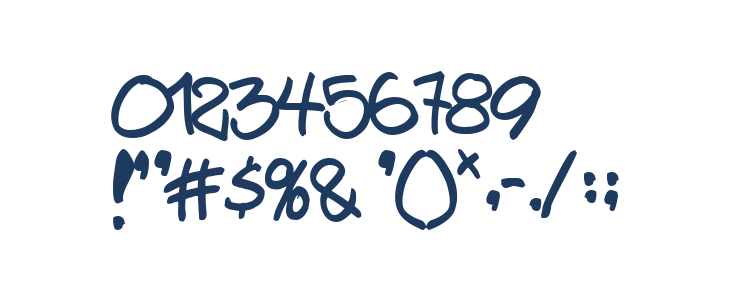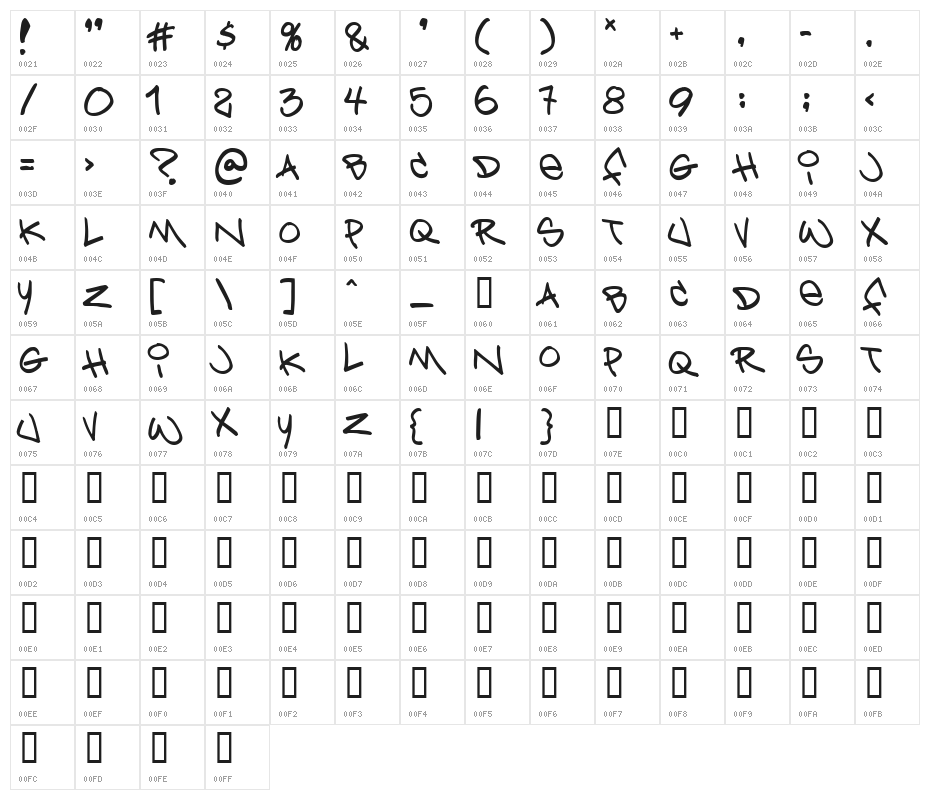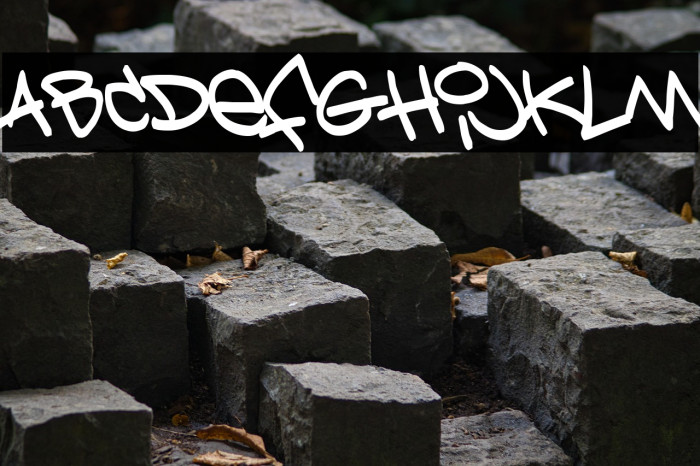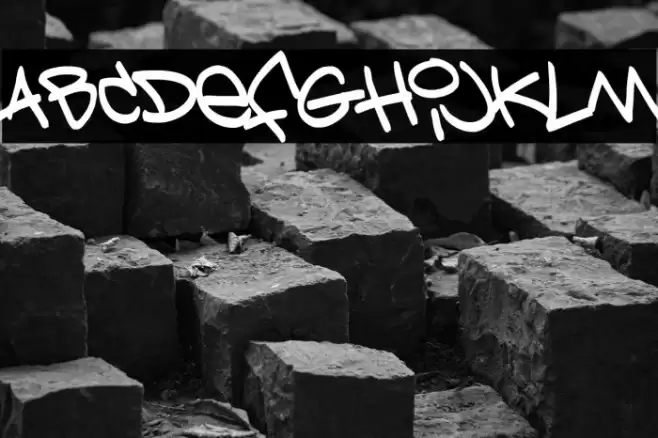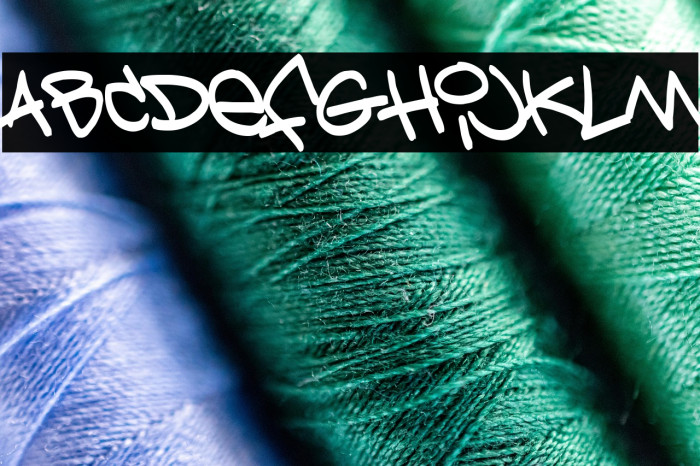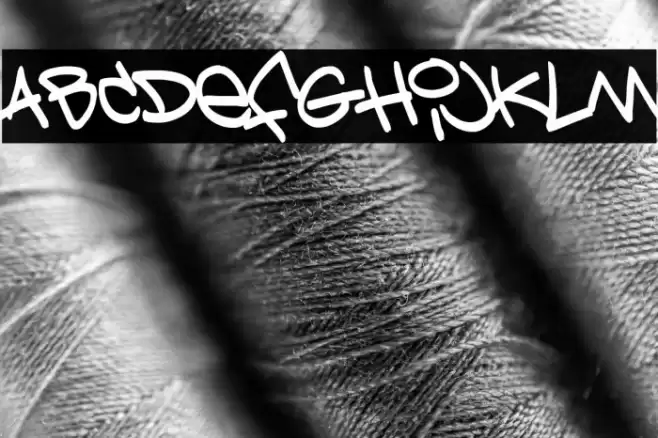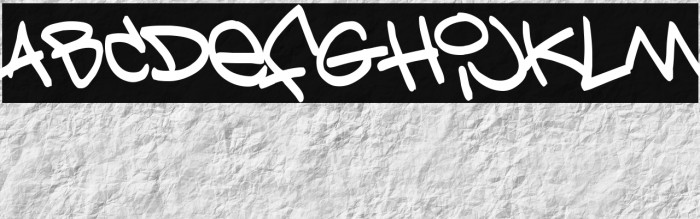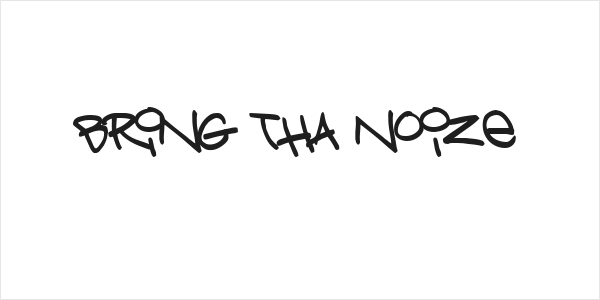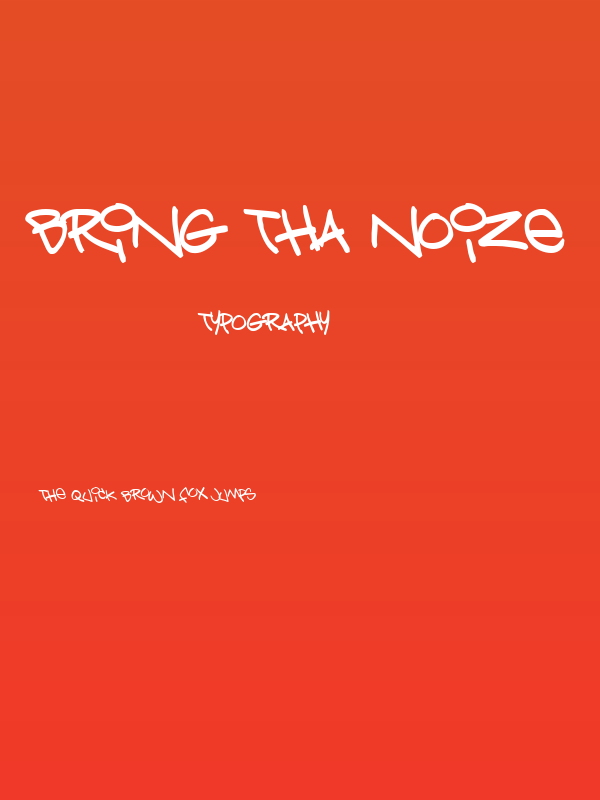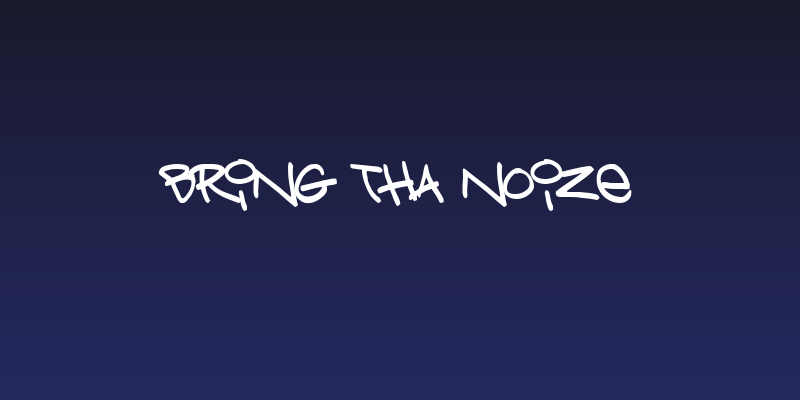
Bring tha noize Font
Bring tha noize Description
This font exudes a dynamic and energetic vibe, reminiscent of urban street art and graffiti. The characters are bold and expressive, with a playful yet edgy style. The letters are slightly slanted, adding a sense of movement and spontaneity. The strokes are thick and uneven, giving it a hand-drawn appearance that is both raw and authentic. This font captures the essence of rebellion and creativity, making it perfect for projects that aim to stand out and make a statement.
| Overall Style | Urban, Edgy, Creative |
| Proposed Projects | Ideal for streetwear branding, music album covers, event posters, and urban-themed designs. |